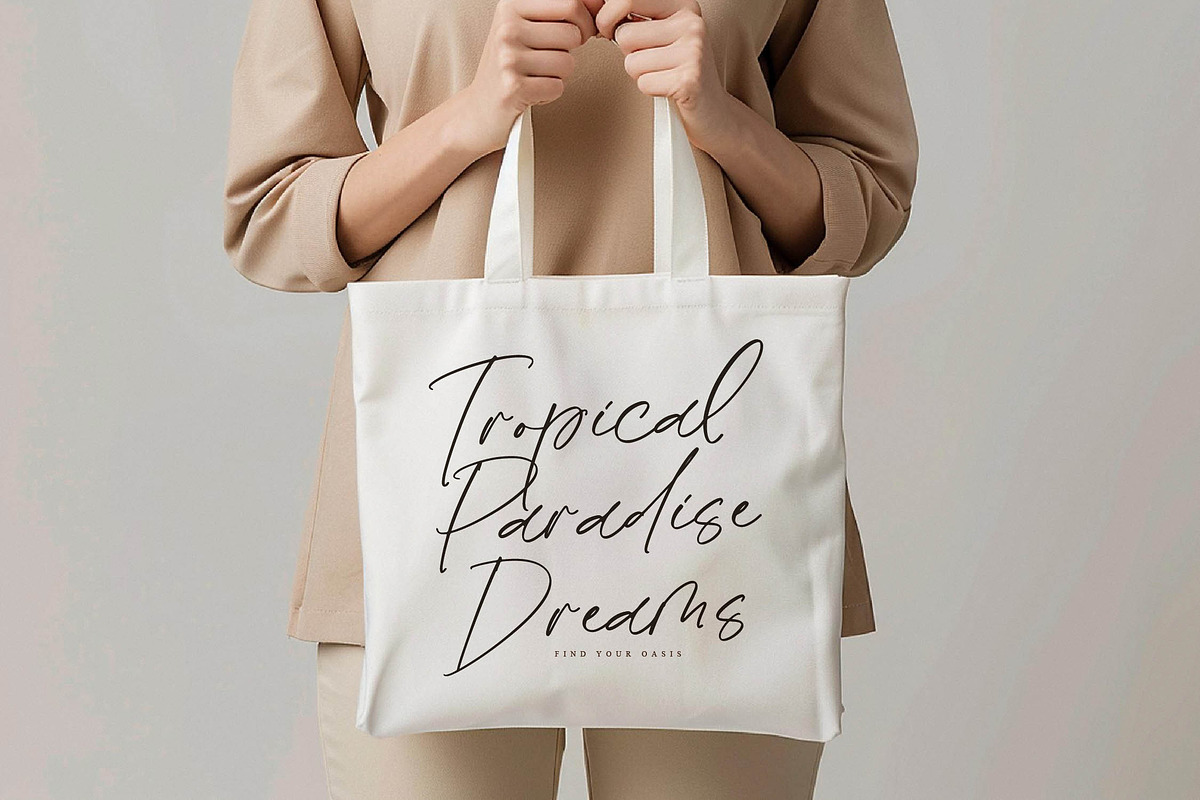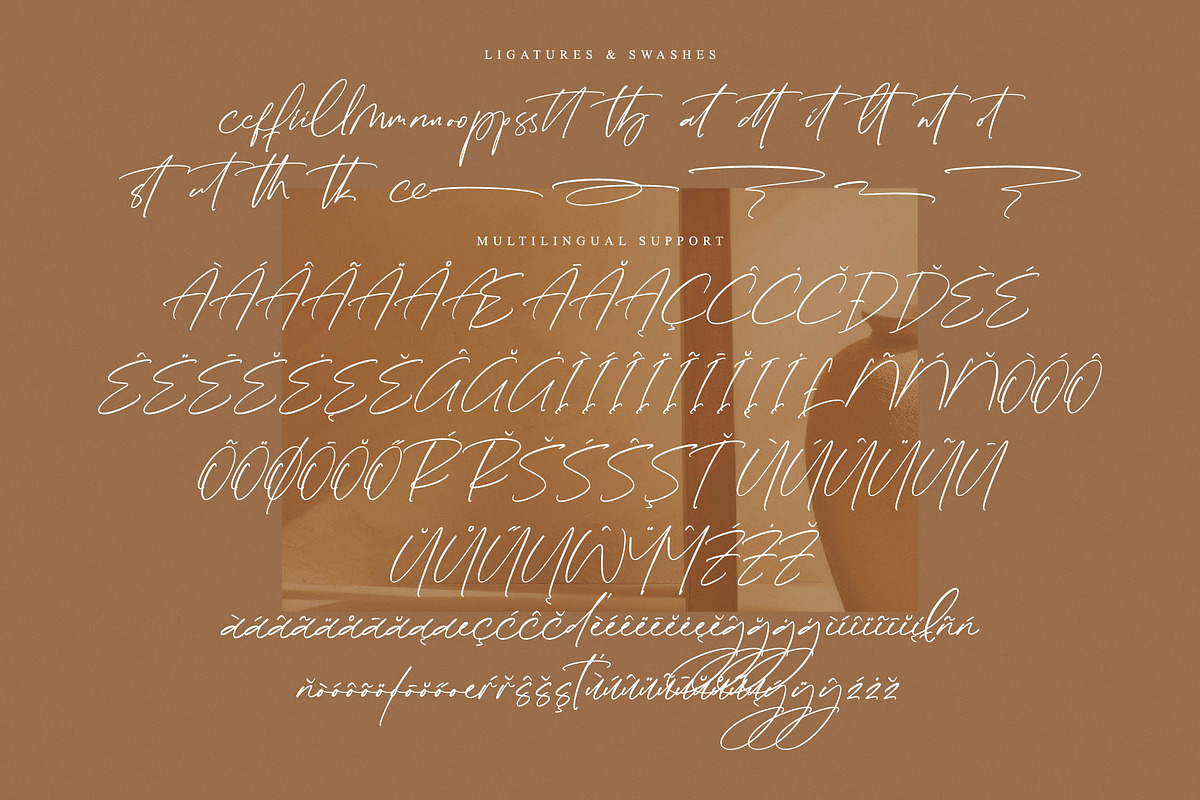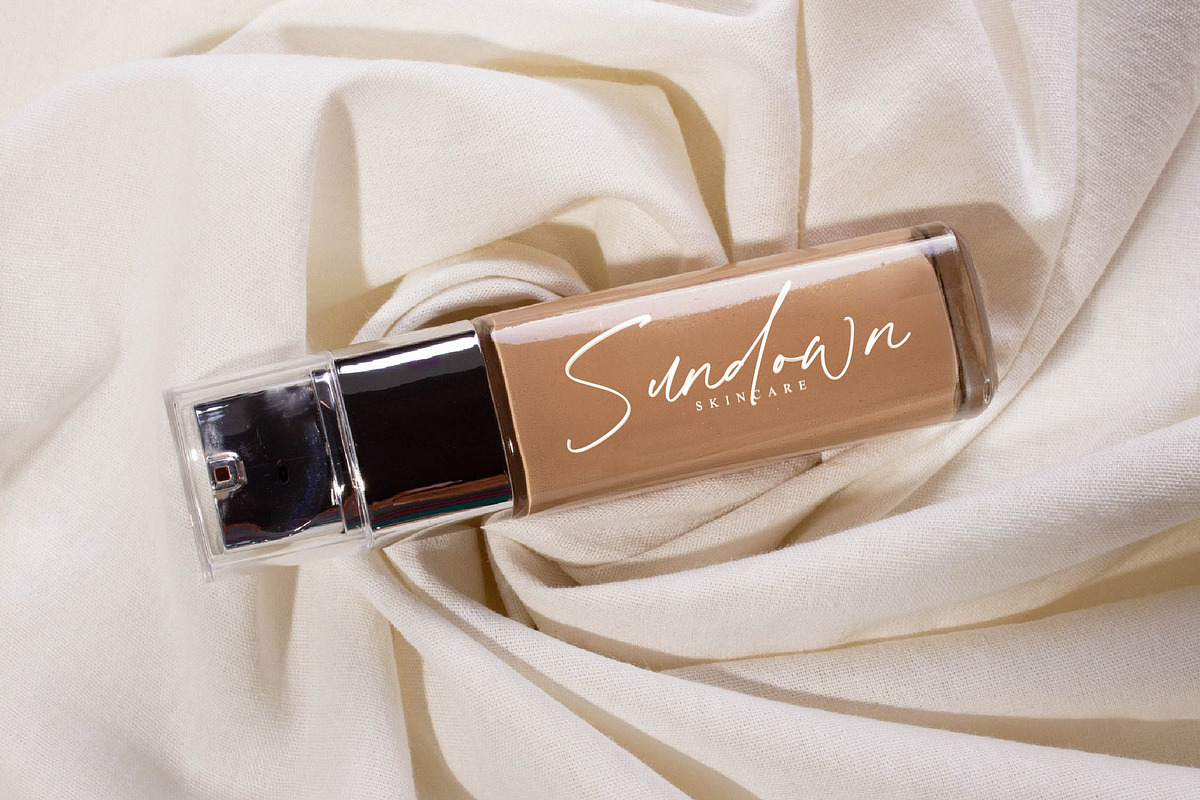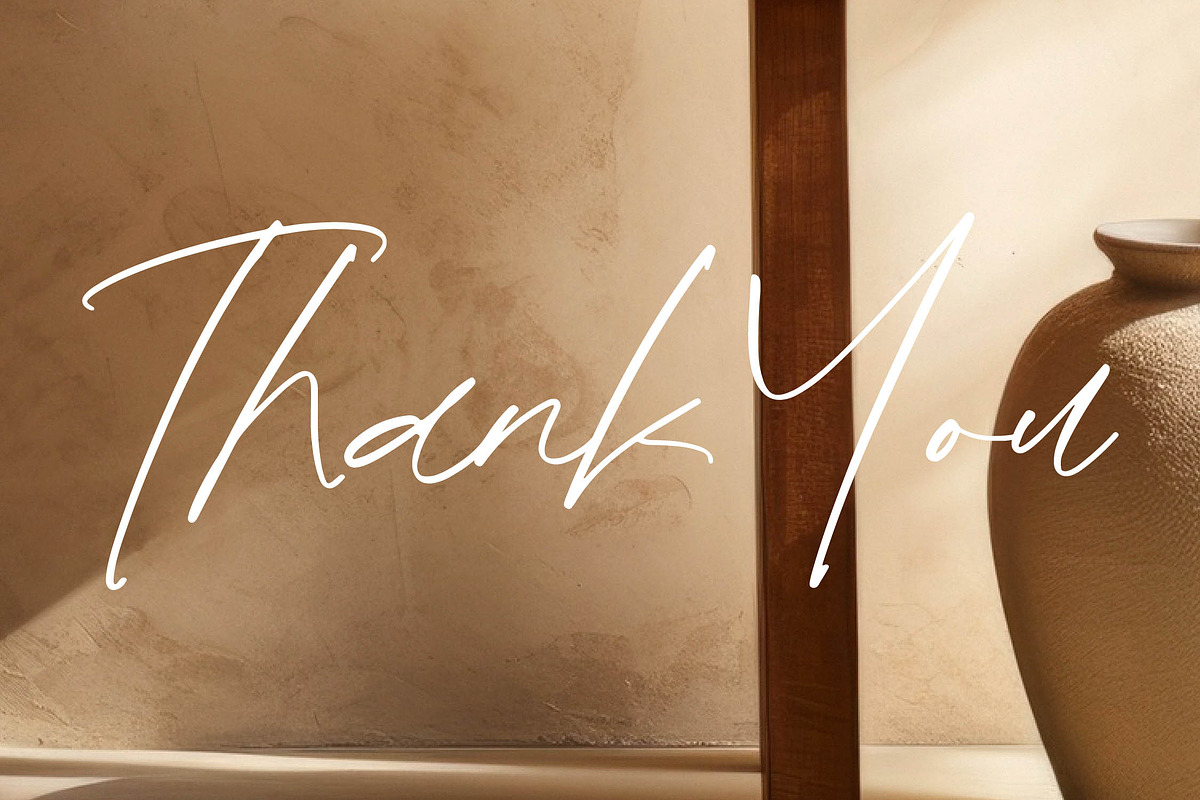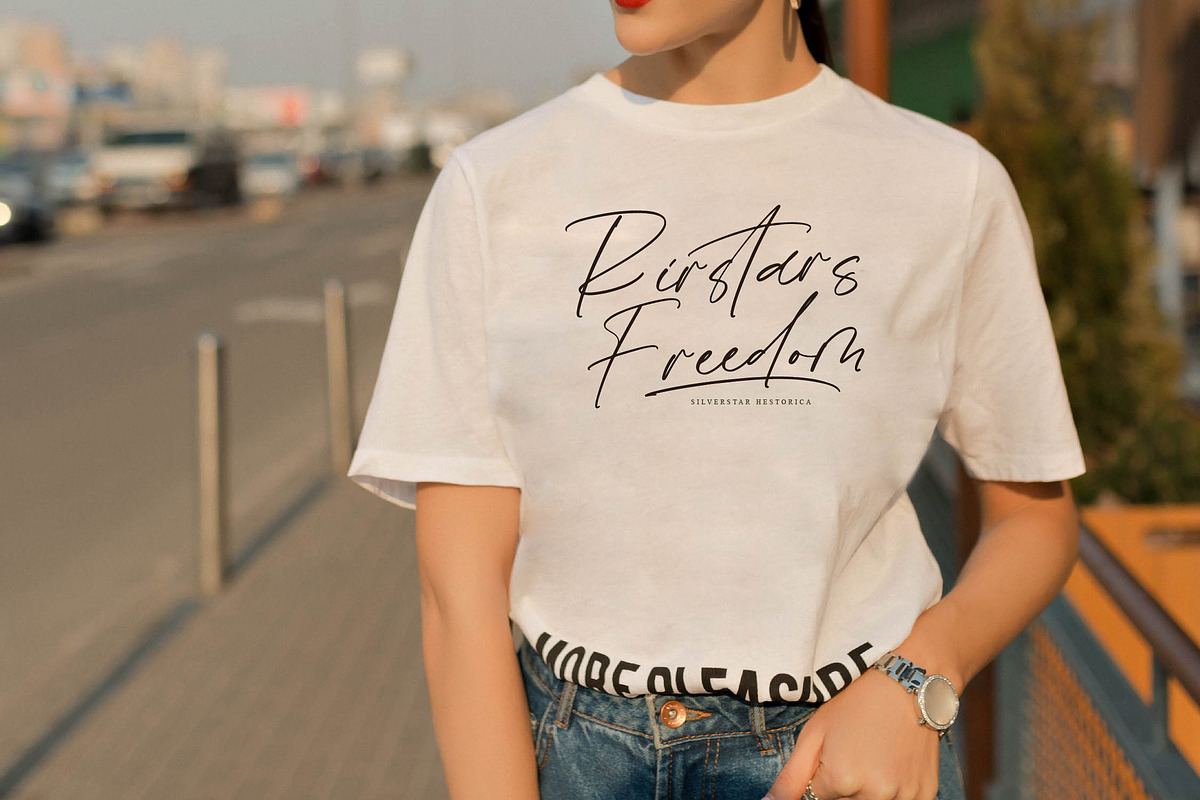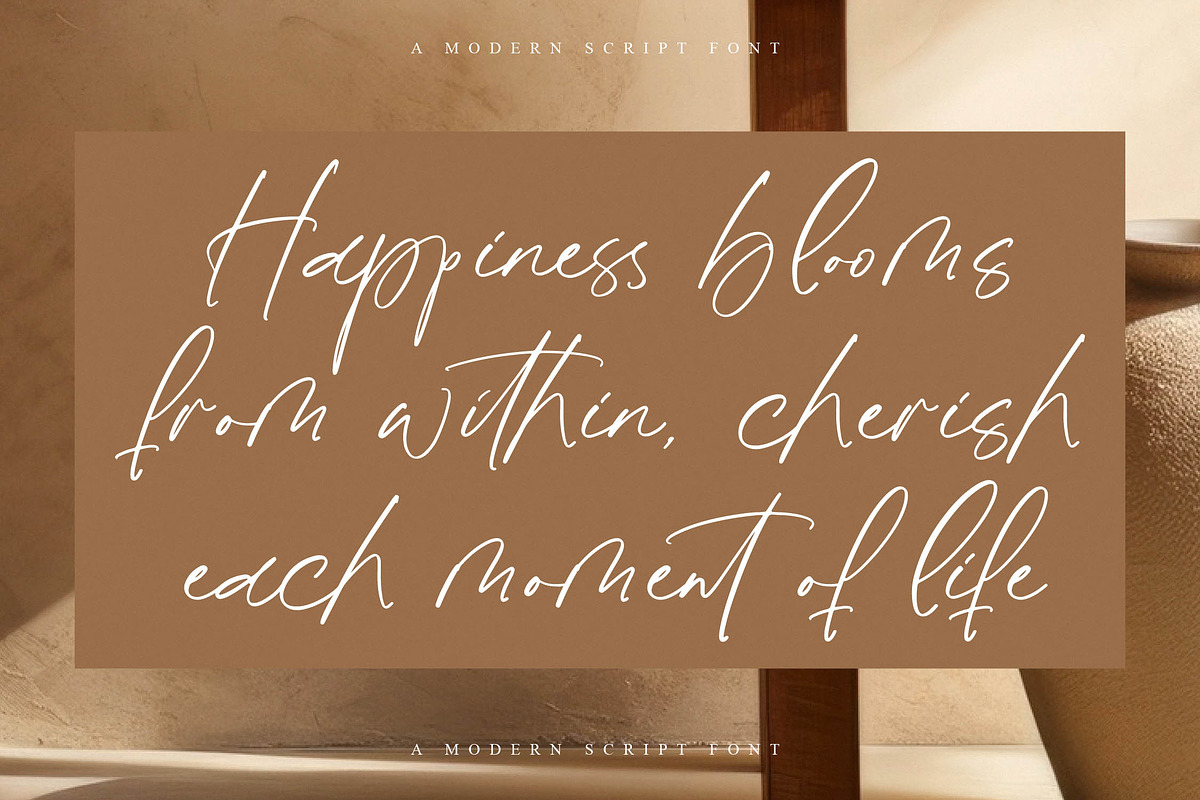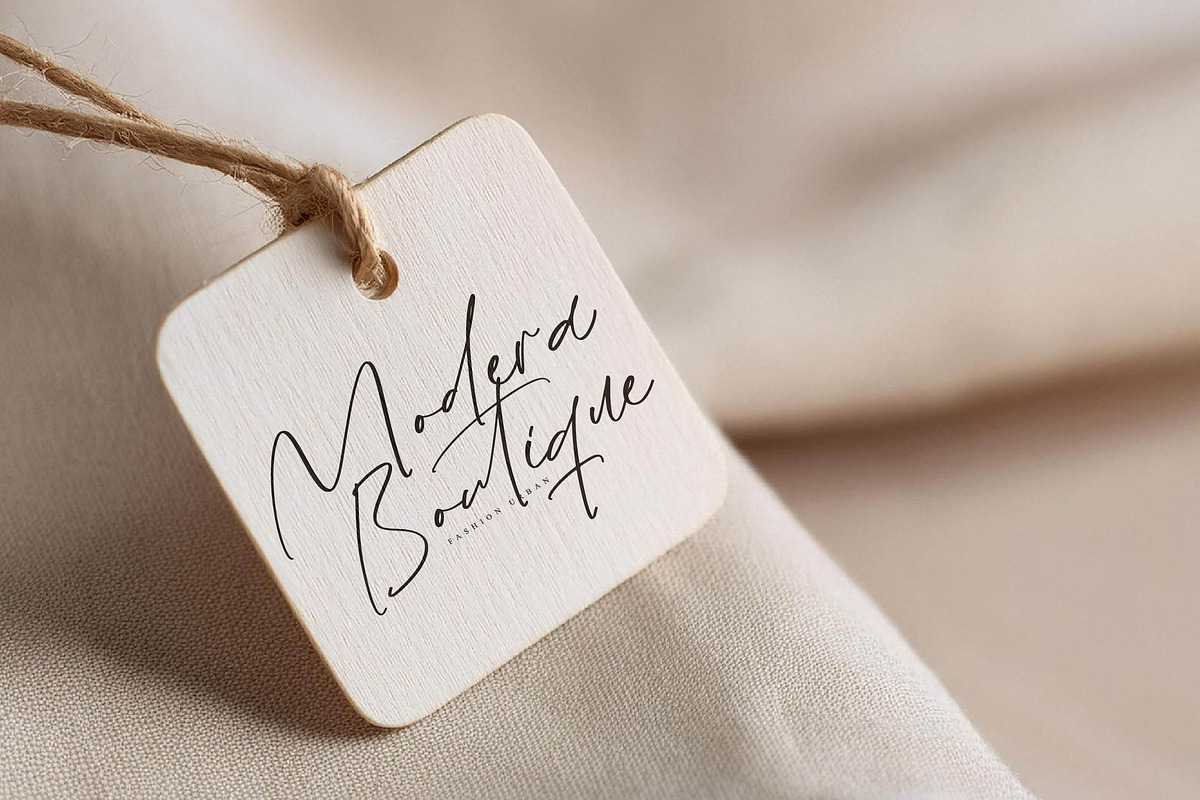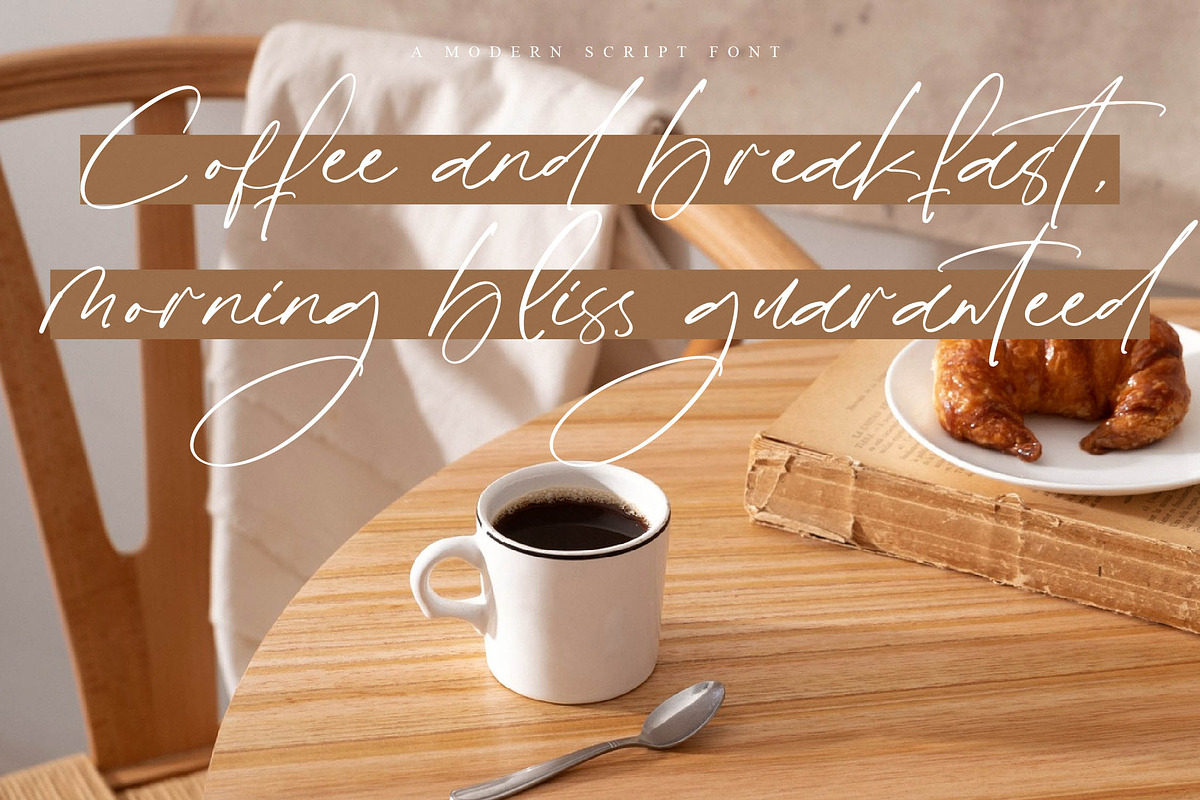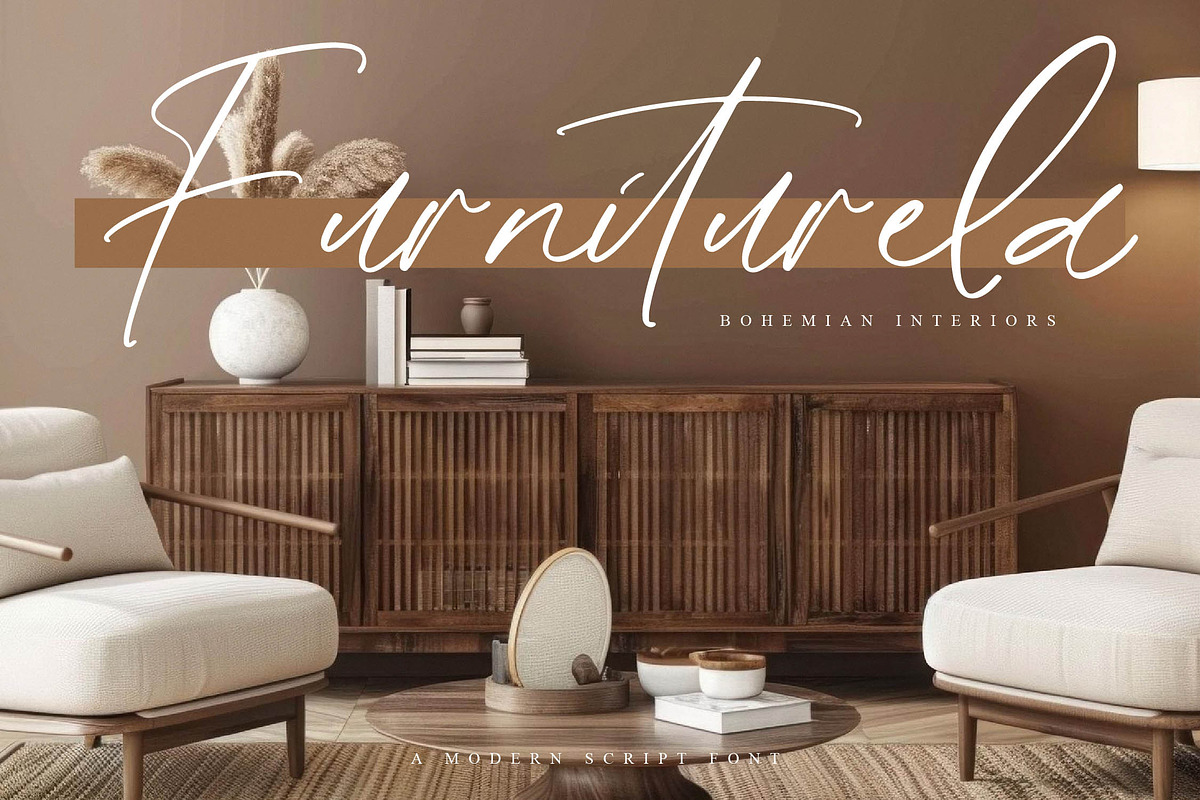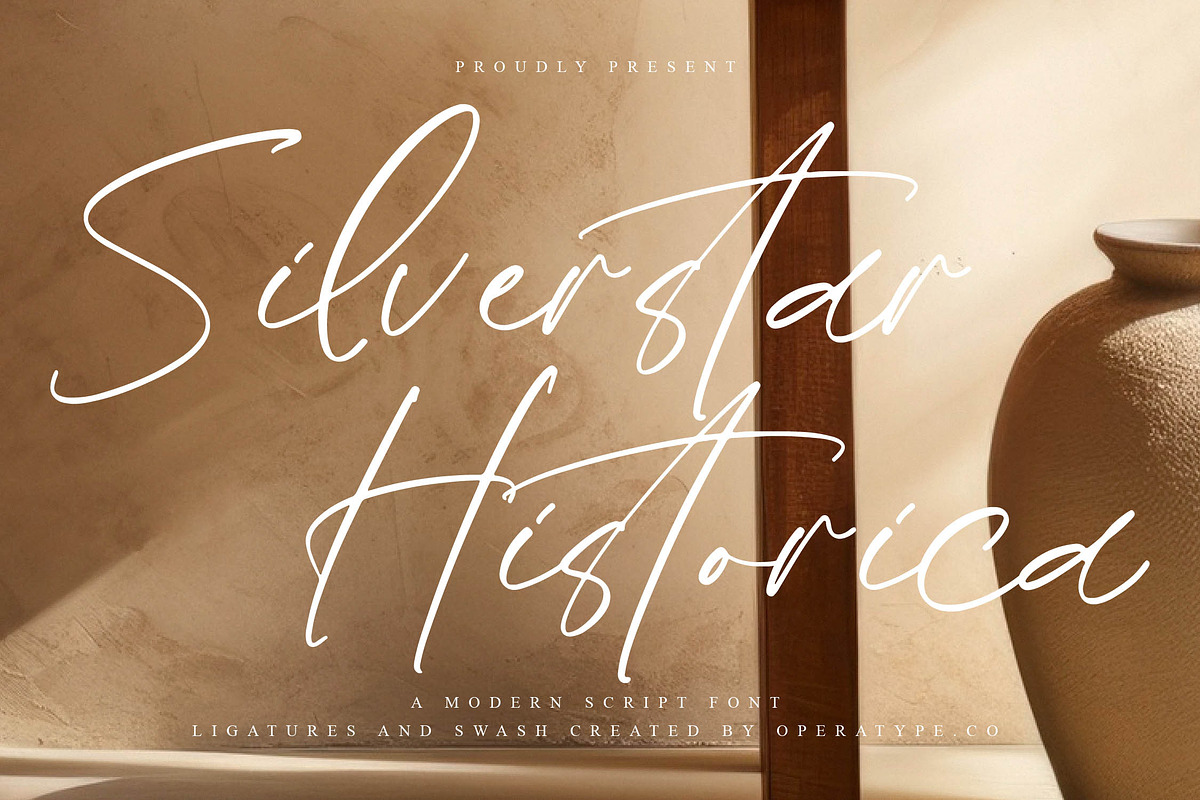
Silverstar Historica
🌟 Elegant & Versatile Script Font for a Luxurious and Captivating Touch 🌟
Are you looking for a font that adds a touch of luxury and elegance to your design projects? Introducing Silverstar Historica, a script font crafted with a flowing and sophisticated style! Each character is uniquely designed to mimic natural handwriting, giving your text a polished, professional look.
✨ Key Features:
Elegant and Modern Appeal: Ideal for logos, branding, invitations, and other creative designs. Easy to Customize: Includes alternative characters, ligatures, and swashes for a more personalized look. Multilingual Support: Equipped with international characters for wider usability. Responsive Display: Looks stunning on both small and large screens, in print and digital formats alike. 💡 Perfect for:
Branding and Logos Invitations Social Media Content Website Headers Merchandise Design & more! Make your project unforgettable with Silverstar Historica – the script font that brings every word to life!